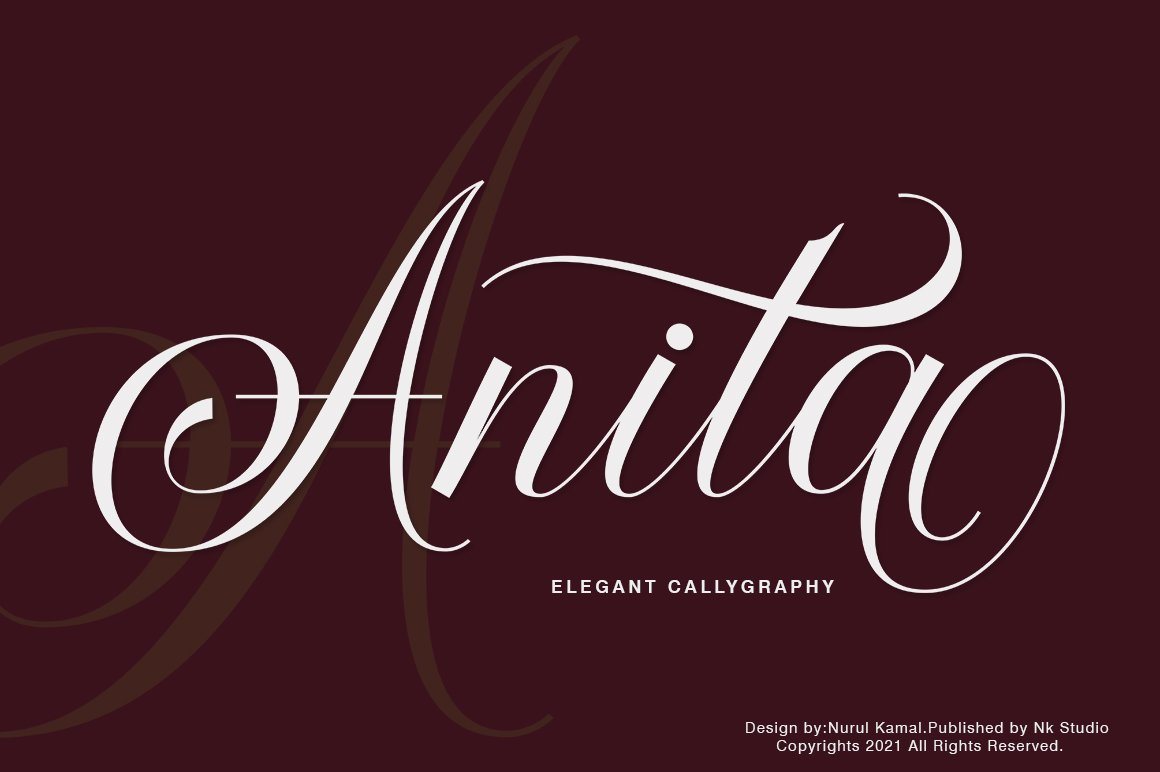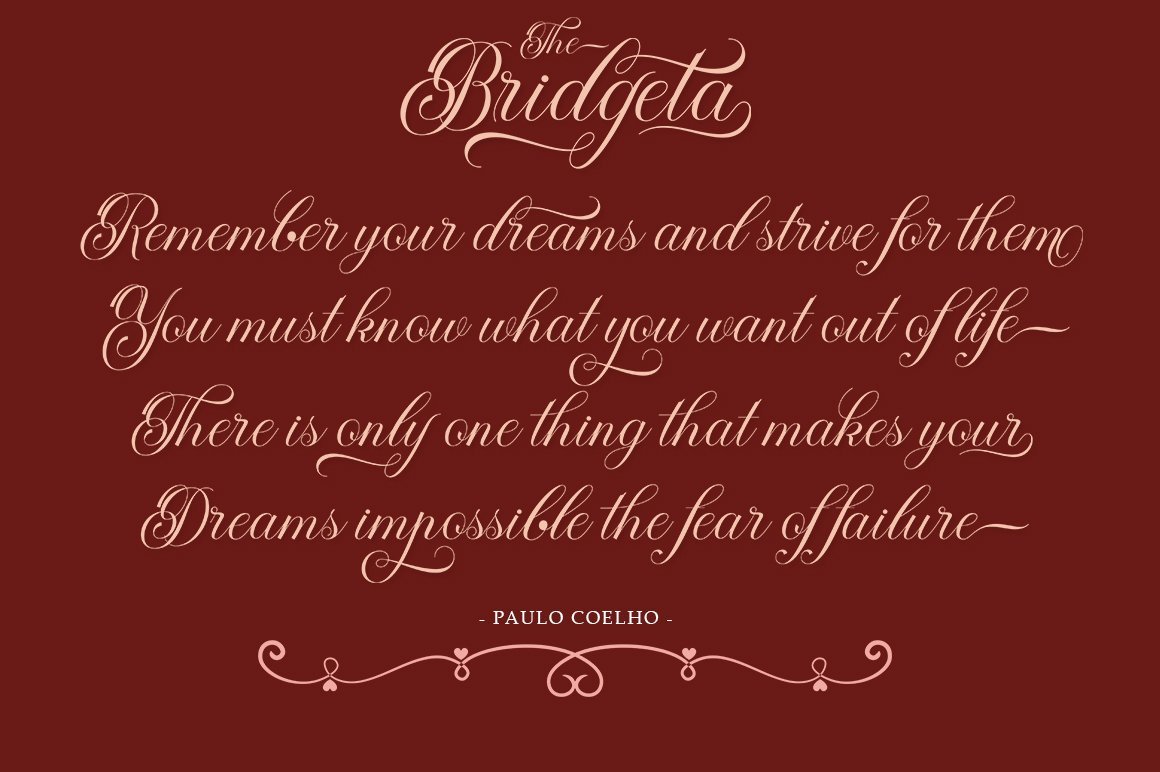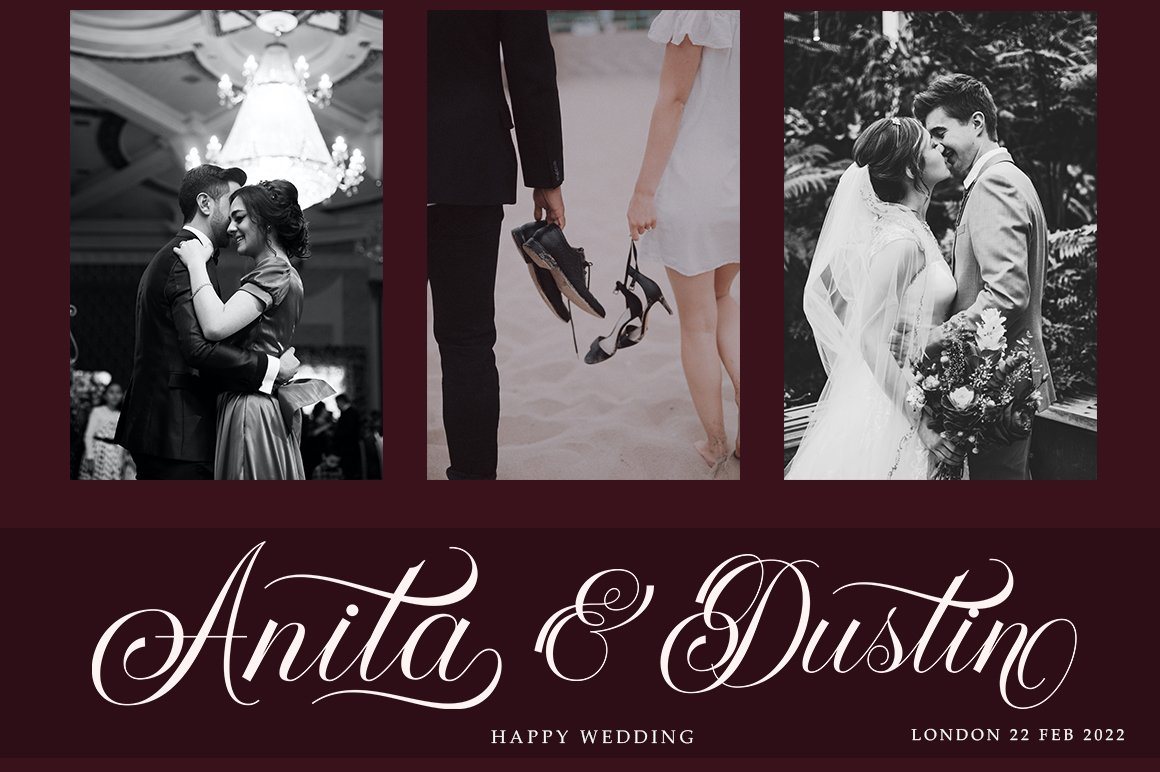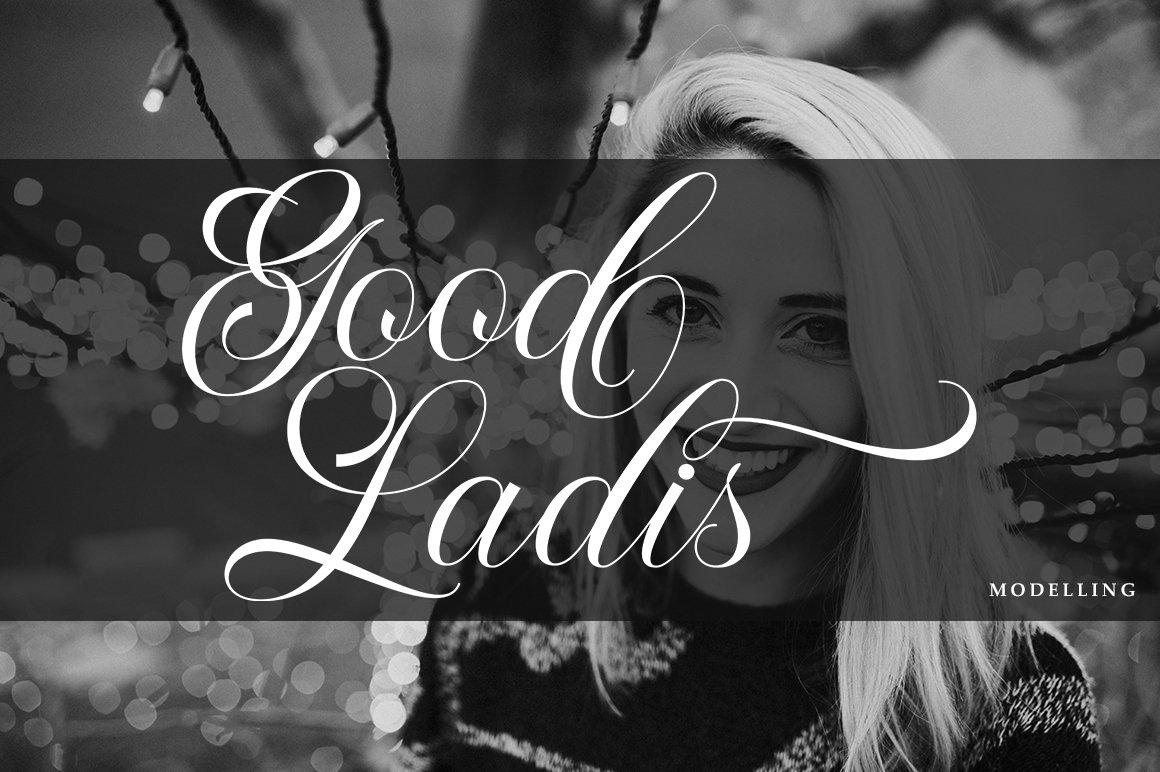
About The Bridgeta
The Bridgeta is a very legible Elegant Calligraphy, which is simply beautiful, classy, and elegant. Can be used for various purposes. Such as logos, wedding invitations, t-shirts, letterheads, signboards, news, posters, badges etc. The Bridgeta features 389 glyphs, including initials and terminal letters, alternates, ligatures, and multiple language support. Files include: The Bridgeta .otf The Bridgeta .ttf Thank you!